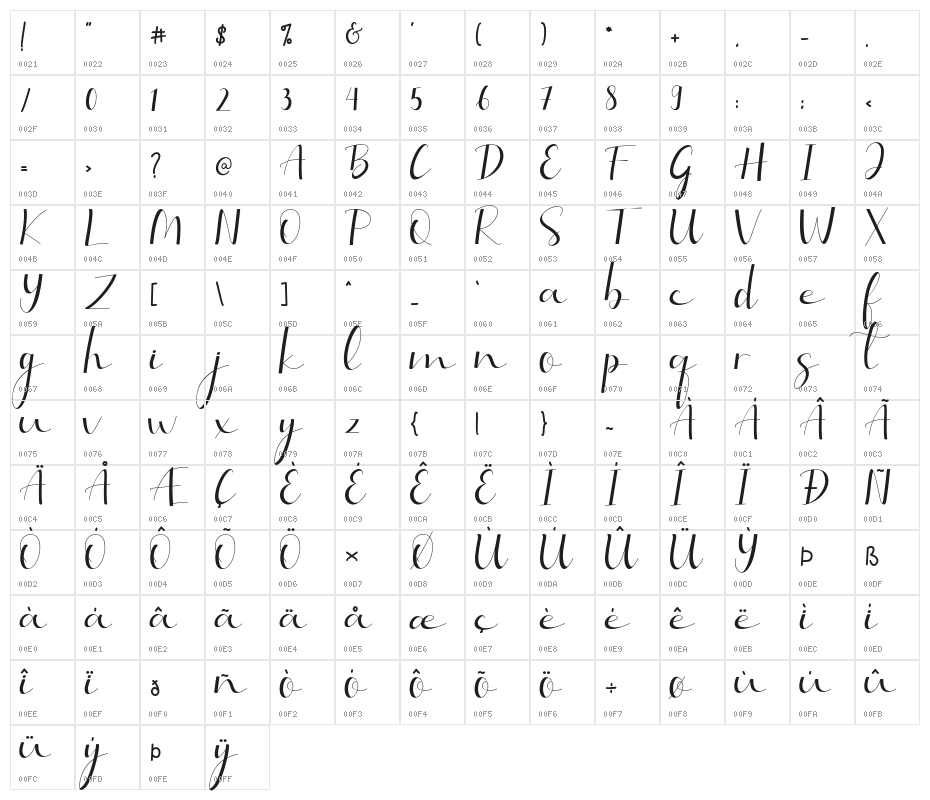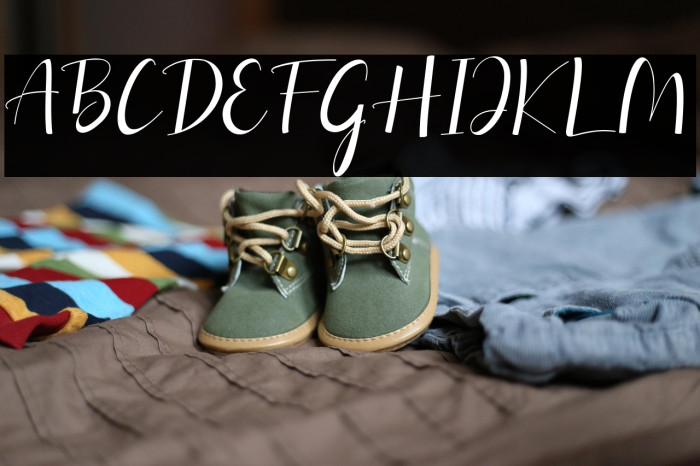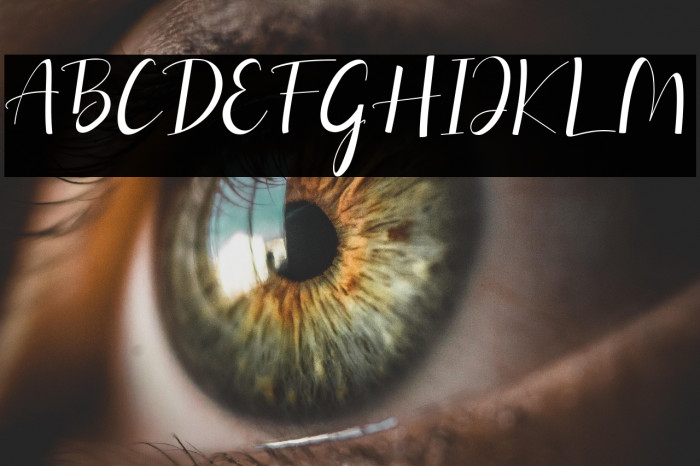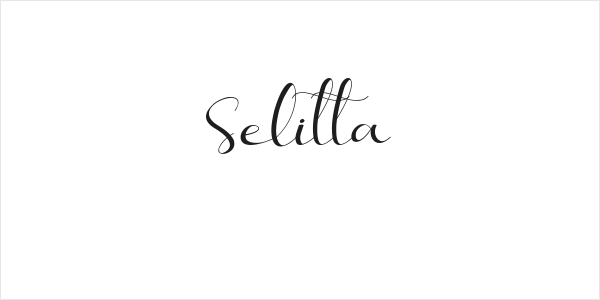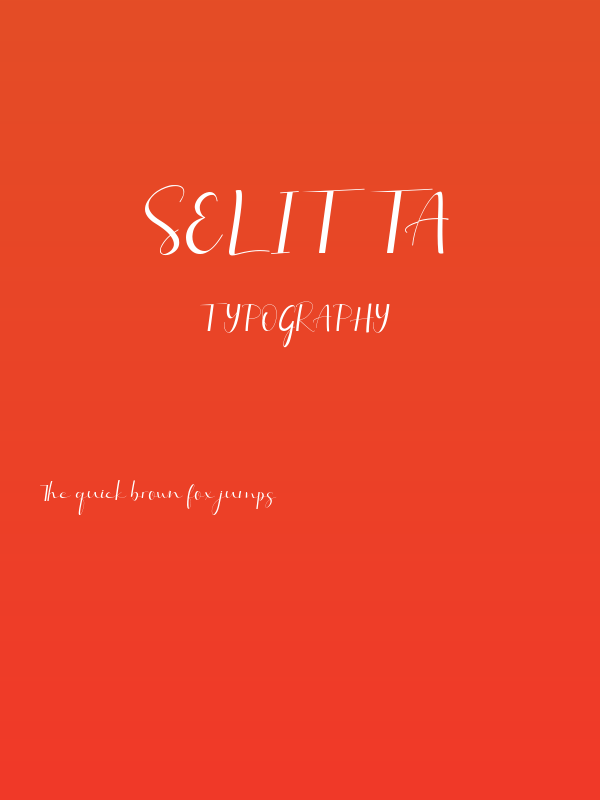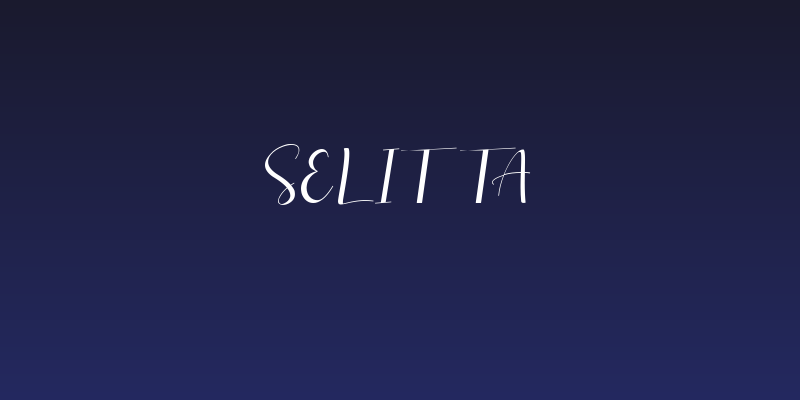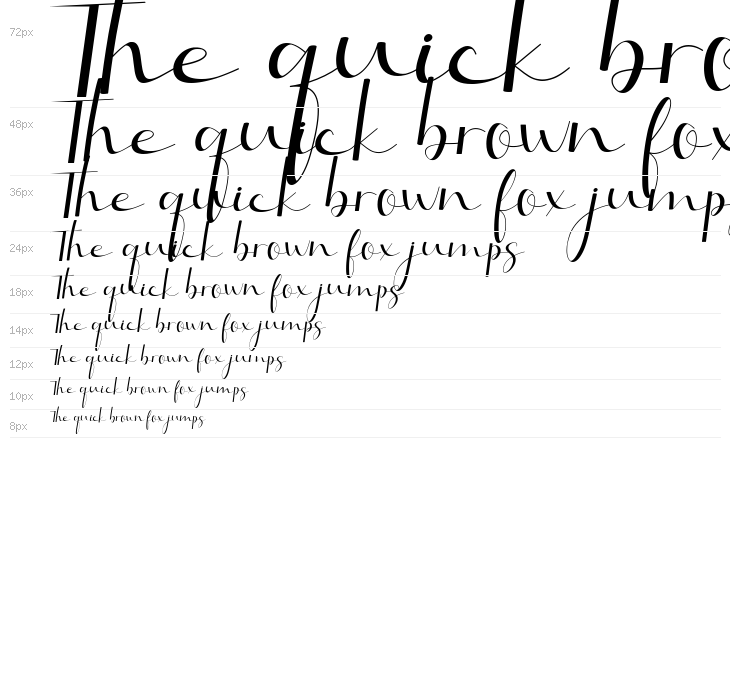
Selitta Font
Selitta Description
This font exudes a sophisticated and elegant style, characterized by its flowing, cursive script that combines both uppercase and lowercase letters with a graceful flair. The uppercase letters are tall and slender, with sweeping curves and delicate loops that give a sense of movement and fluidity. The lowercase letters maintain a consistent style, with some letters featuring elongated ascenders and descenders that add to the font's overall elegance. The numerals are designed with a similar aesthetic, offering a harmonious blend of curves and straight lines. Special characters are thoughtfully integrated, maintaining the font's cohesive look. This font is perfect for projects that require a touch of class and sophistication.